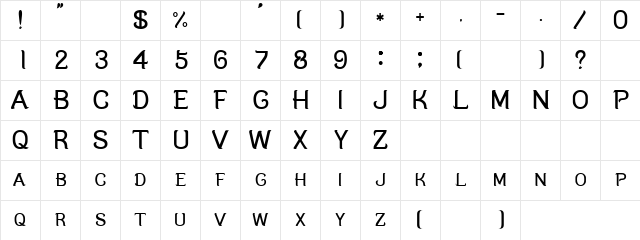
Ele Regular
Design Context for Ele
Ele is a composed and adaptable typeface that performs quietly and consistently across a wide range of design contexts.
Pro Tip: Use Ele in both headline and body roles to test its range before committing to a single application.